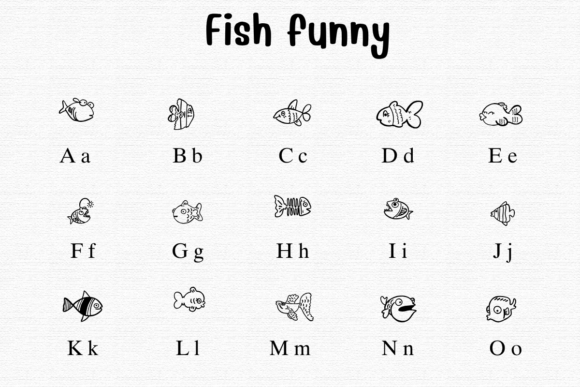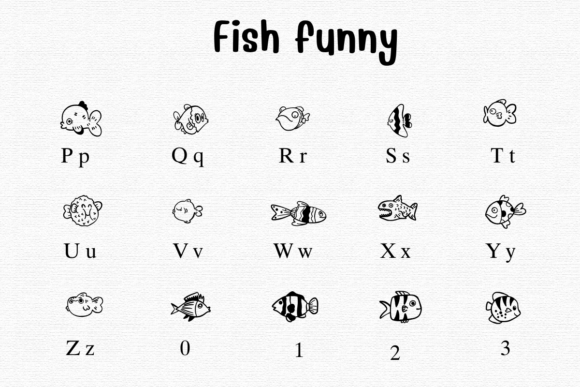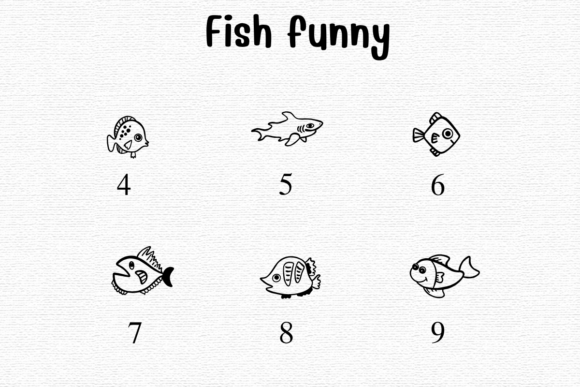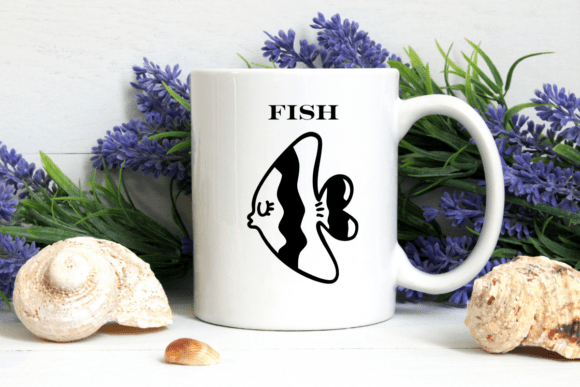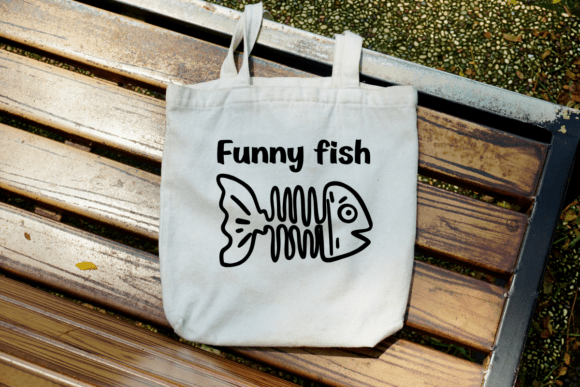
Discover the Delightful World of Fish Funny Font
Have you ever been in the middle of a design project, searching for that perfect font to bring your creative vision to life? I recall a recent experience where I was working on a children’s book illustration, and I needed a font that would add a playful, underwater touch. That’s when I stumbled upon Fish Funny, a charming dingbats font that has become a staple in my design toolkit.
A Treasure Trove of Aquatic Characters
Fish Funny is a whimsical font that features a diverse collection of hand-drawn aquatic characters. From googly-eyed tropical fish and prickly pufferfish to skeletal remains and deep-sea anglers, this font is packed with personality. Its bold, clean outlines and playful “cartoon” aesthetic make it an ideal choice for teachers, children’s book illustrators, and DIY crafters.
Honest Review: The Good and the Great
Here’s what I love about Fish Funny:
- ✨ Variety of characters: The font includes a wide range of aquatic characters, from cute fish to ocean creatures, ensuring that your designs will never be boring.
- 🌟 Perfect for kids’ projects: The font’s playful aesthetic makes it an excellent choice for children’s book illustrations, worksheets, and birthday party invitations.
Some minor quirks to consider:
- 🤔 Limited text formatting options: As a dingbats font, Fish Funny is primarily designed for use with symbols and icons, rather than text.
- ⚠️ May not be suitable for formal projects: The font’s playful nature makes it better suited for creative, informal projects rather than formal or professional designs.
The Story Behind Fish Funny
Fish Funny was designed with the intention of creating a fun, playful font that would bring a touch of whimsy to design projects. The font’s creator drew inspiration from the colorful world of aquatic creatures, aiming to capture the imagination of designers and crafters alike.
| Author | Sontaya |
| What type of projects is Fish Funny best suited for? | Fish Funny is perfect for creative, informal projects such as children’s book illustrations, worksheets, birthday party invitations, and DIY crafts. |